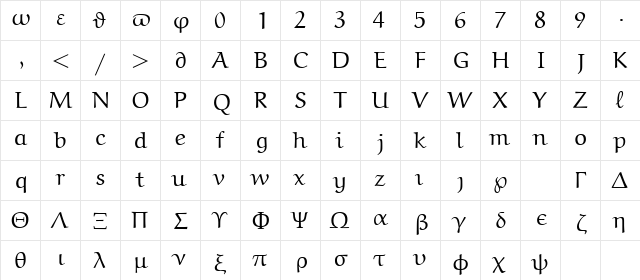
eurm10 Regular
Design Context for eurm10 Typeface
eurm10 takes a measured approach to typography — its balanced proportions and neutral character make it a reliable workhorse for both digital and print work.